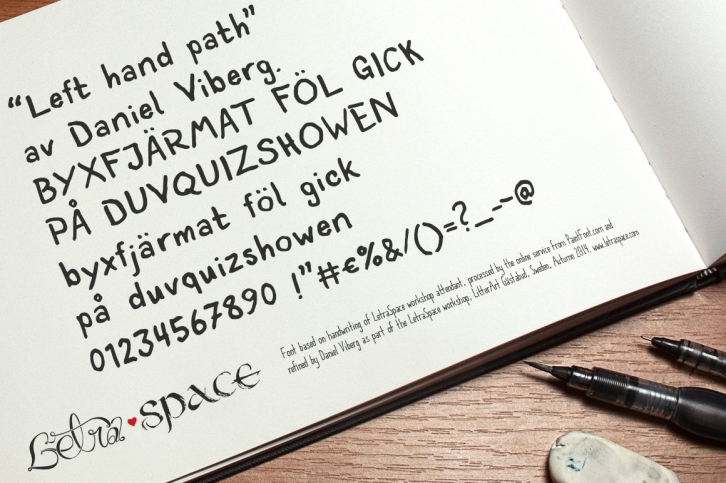
Font based on handwriting of LetraSpace workshop attendant, processed by the online service from PaintFont.com and refined by Daniel Viberg as part of the LetraSpace workshop, LitterArt Gästabud, Sweden, Autumn 2014.